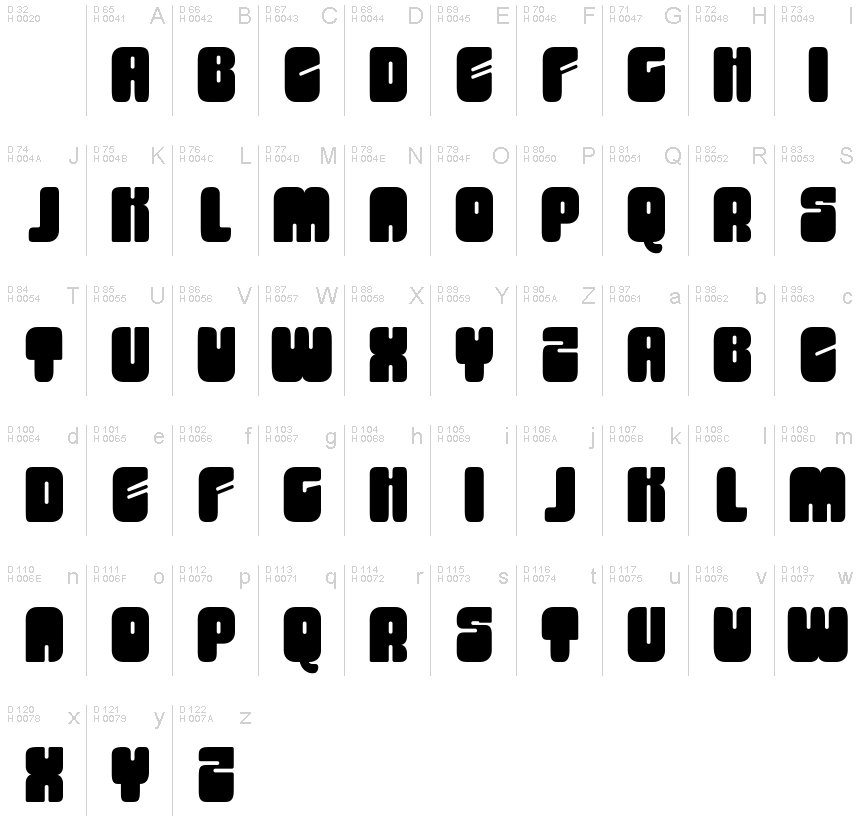
Kasa Green Free Regular
Kasa Green font designed by Maulana Creative is a bold and condensed display font – groovy, playful and fun! This bright and friendly typeface will make your designs stand out from the crowd. Draw attention with bold letters combined into memorable words to highlight your brand or project.
Kasa Green font is ideally suited for a wide variety of projects, such as signature, stationery, logo, wedding, typography quotes, magazine or book covers, website headers, clothing branding, packaging designs and more. Also suitable for use in different types of design works such as invitations or business cards.